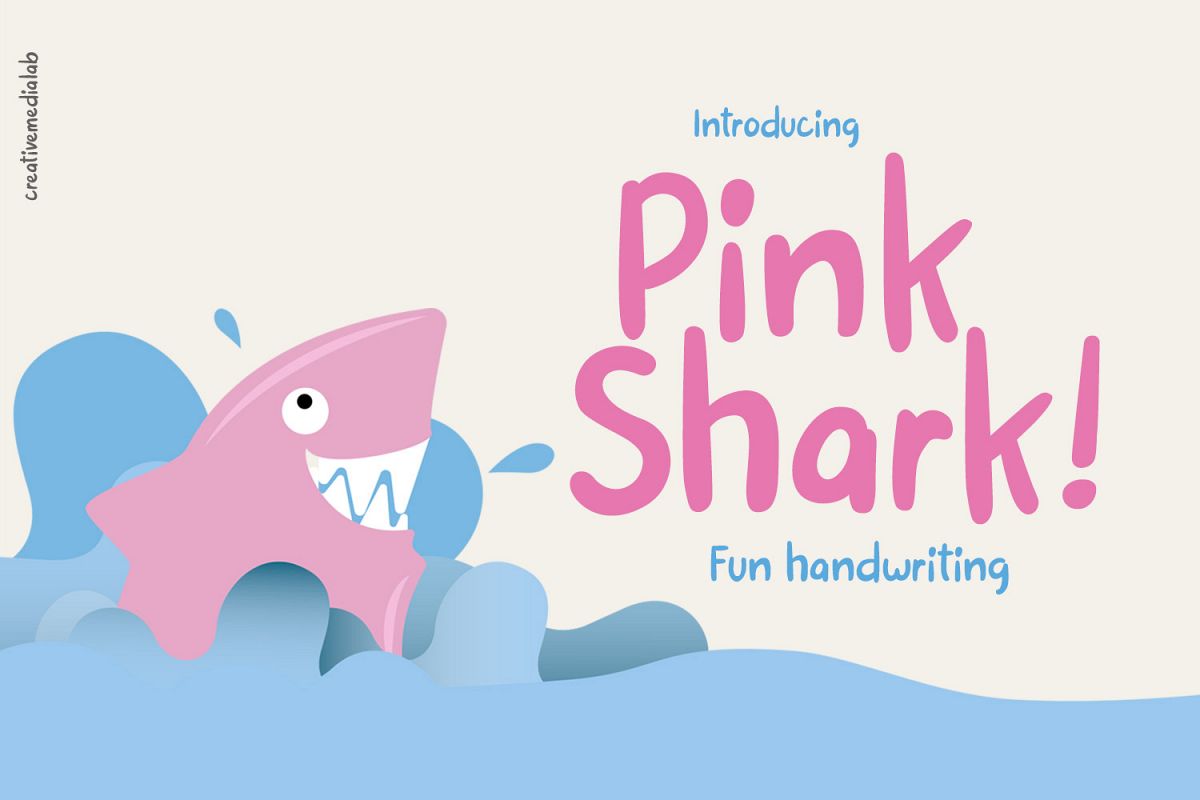
Pink Shark
Introducing Pink Shark Brush Handwritten font
Unique, bold and fun brush fonts consist of regular and wrap styles that will make your design looks modern, unique and fun.
Perfect for labels, quotes, posters, DIY projects, branding,
packaging, greeting cards, websites, photography overlays,
signs, window art, scrap booking, tags and so much more!